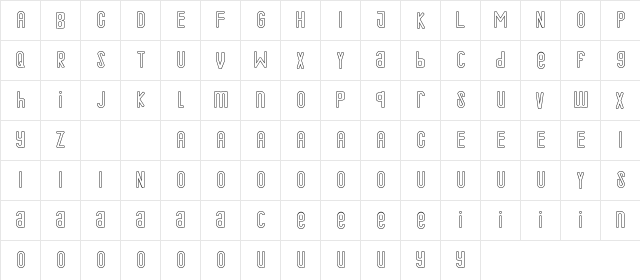
Qalin Demo Outline Regular
| Foundry | Edric Studio |
| Designer | Renata Insan C & Aghnia Nurul Yasmine |
Design Context for Qalin Demo Outline Typeface
Qalin Demo Outline brings ornamental detail and strong personality to headlines and identities, where visual impact matters more than quiet functionality.
Font Pairing: Pair with a clean neutral sans-serif for body copy to let Qalin Demo Outline's character lead without overwhelming the composition.